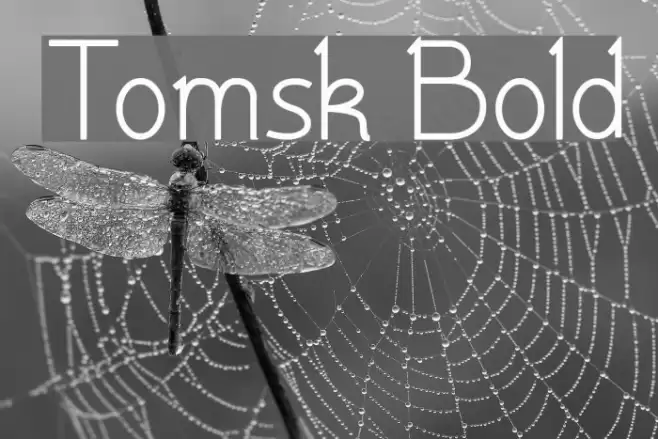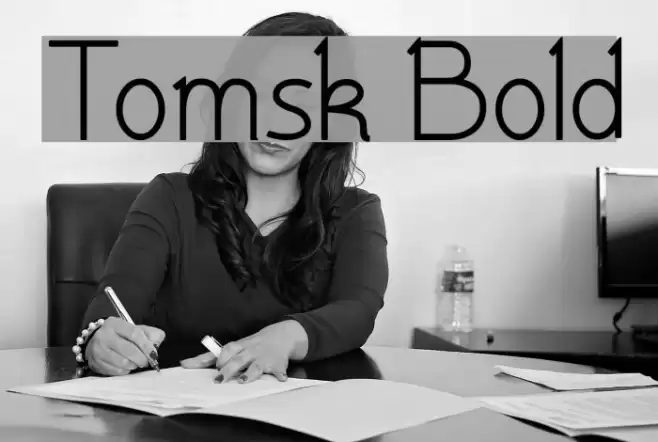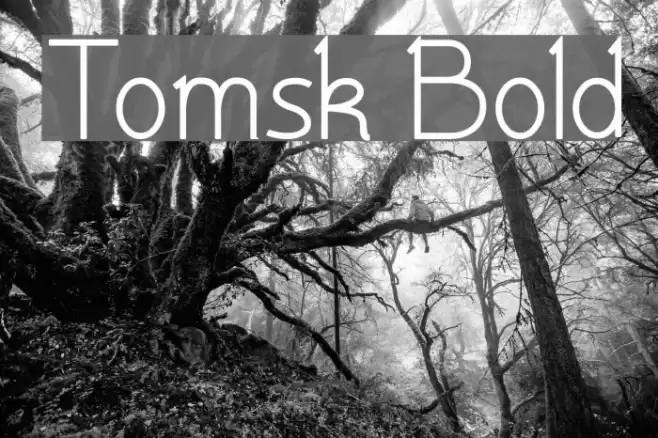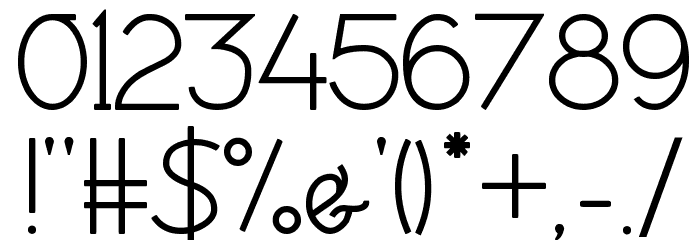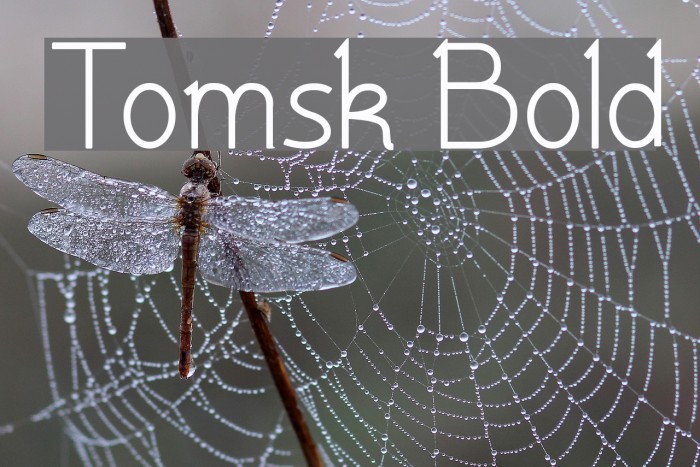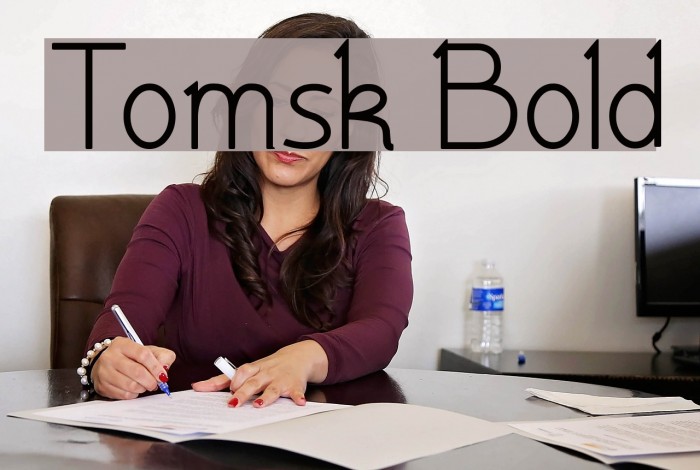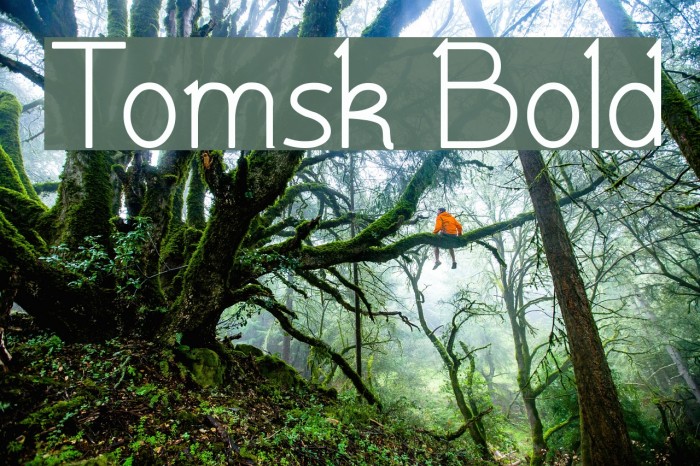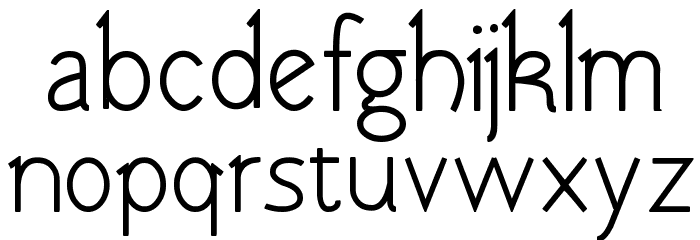
Tomsk Bold
This font features a clean and modern design with a geometric structure. The uppercase letters are tall and narrow, giving a sleek and sophisticated appearance. The lowercase letters maintain a consistent style, with rounded edges that add a touch of softness to the overall look. The numerals are well-proportioned and align perfectly with the alphabet, ensuring readability. Special characters are distinct and harmonize with the rest of the set, making it versatile for various uses. The font's simplicity and elegance make it suitable for both digital and print media.
A modern, geometric font with a sleek and sophisticated design.